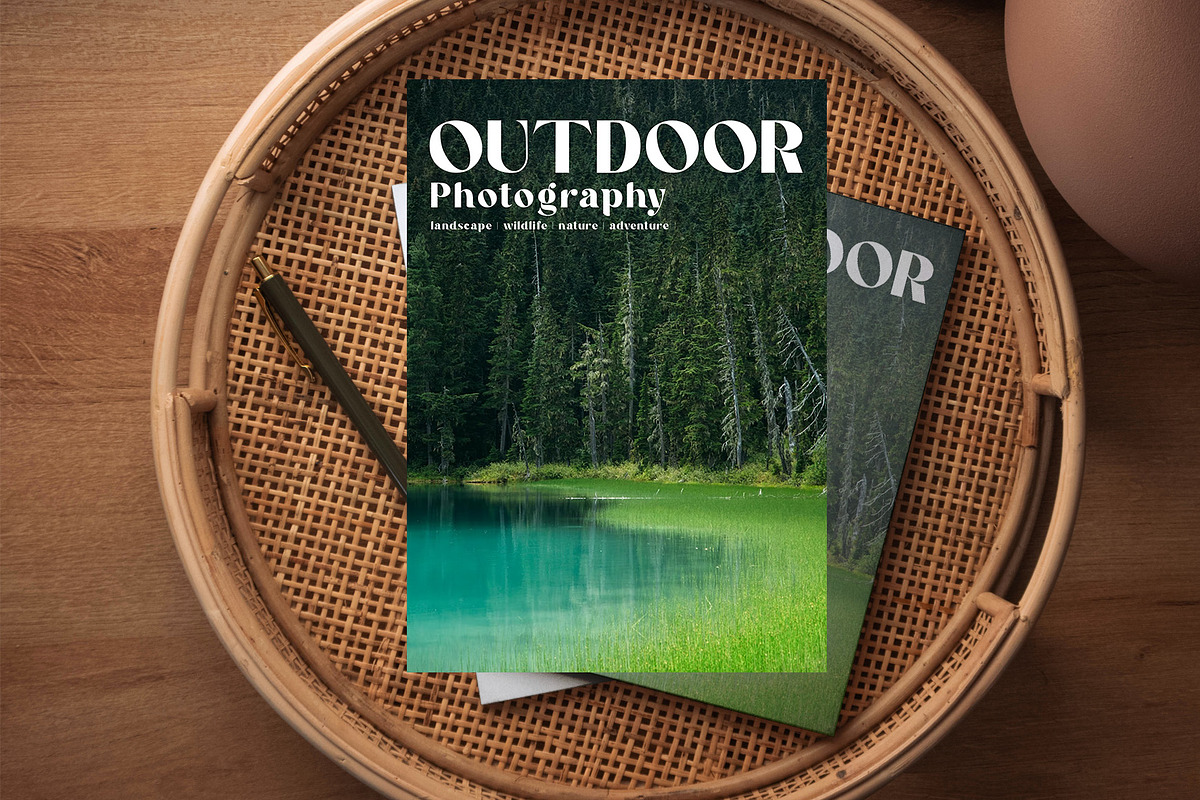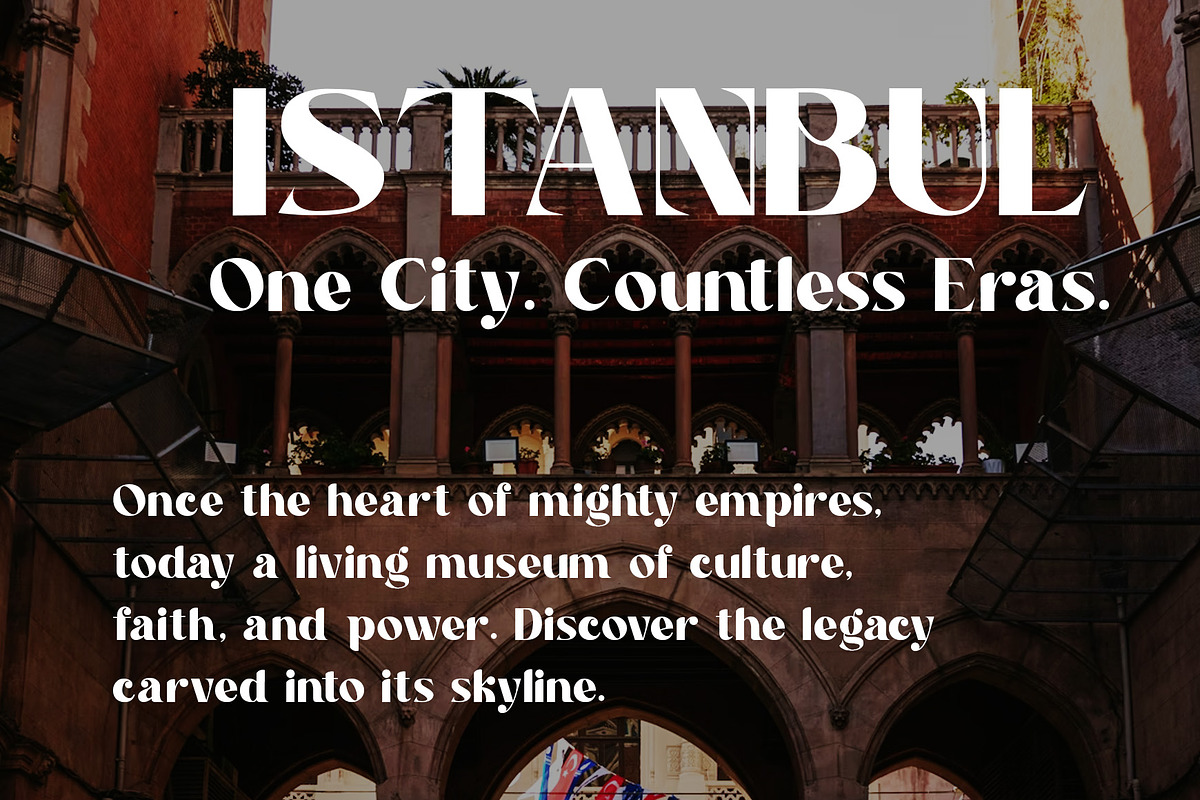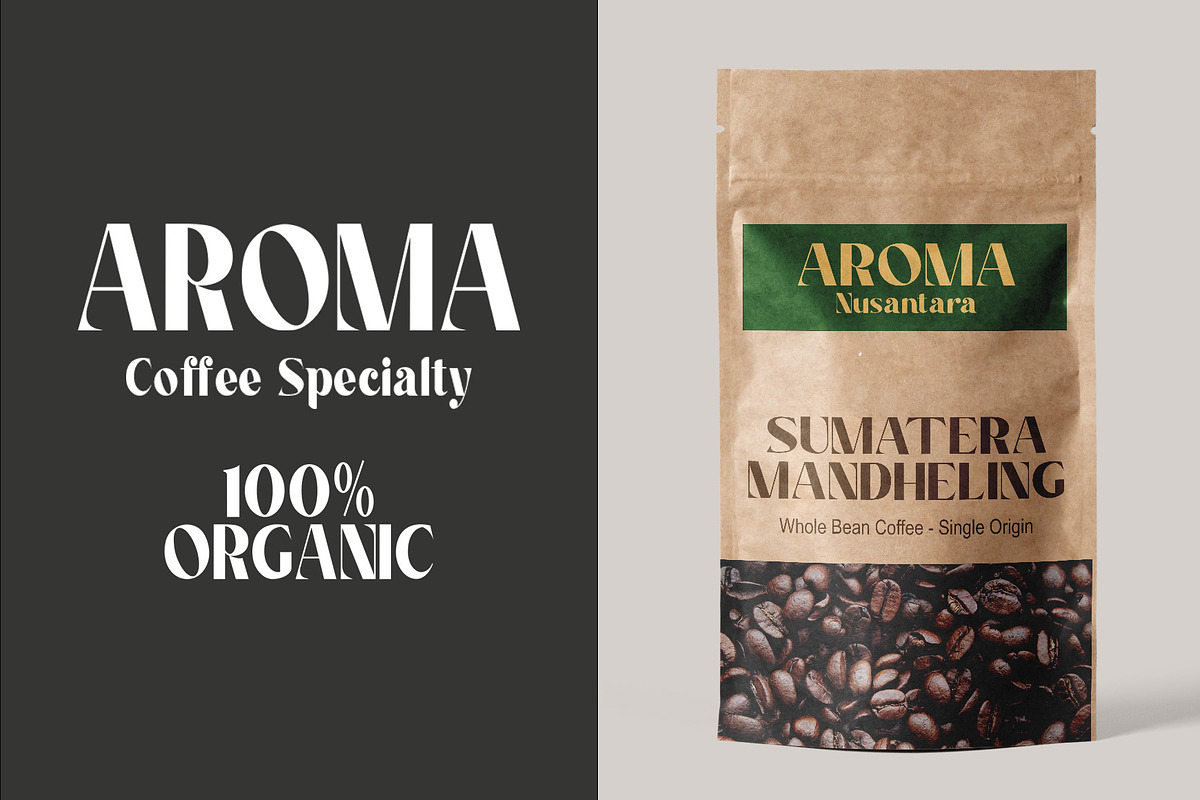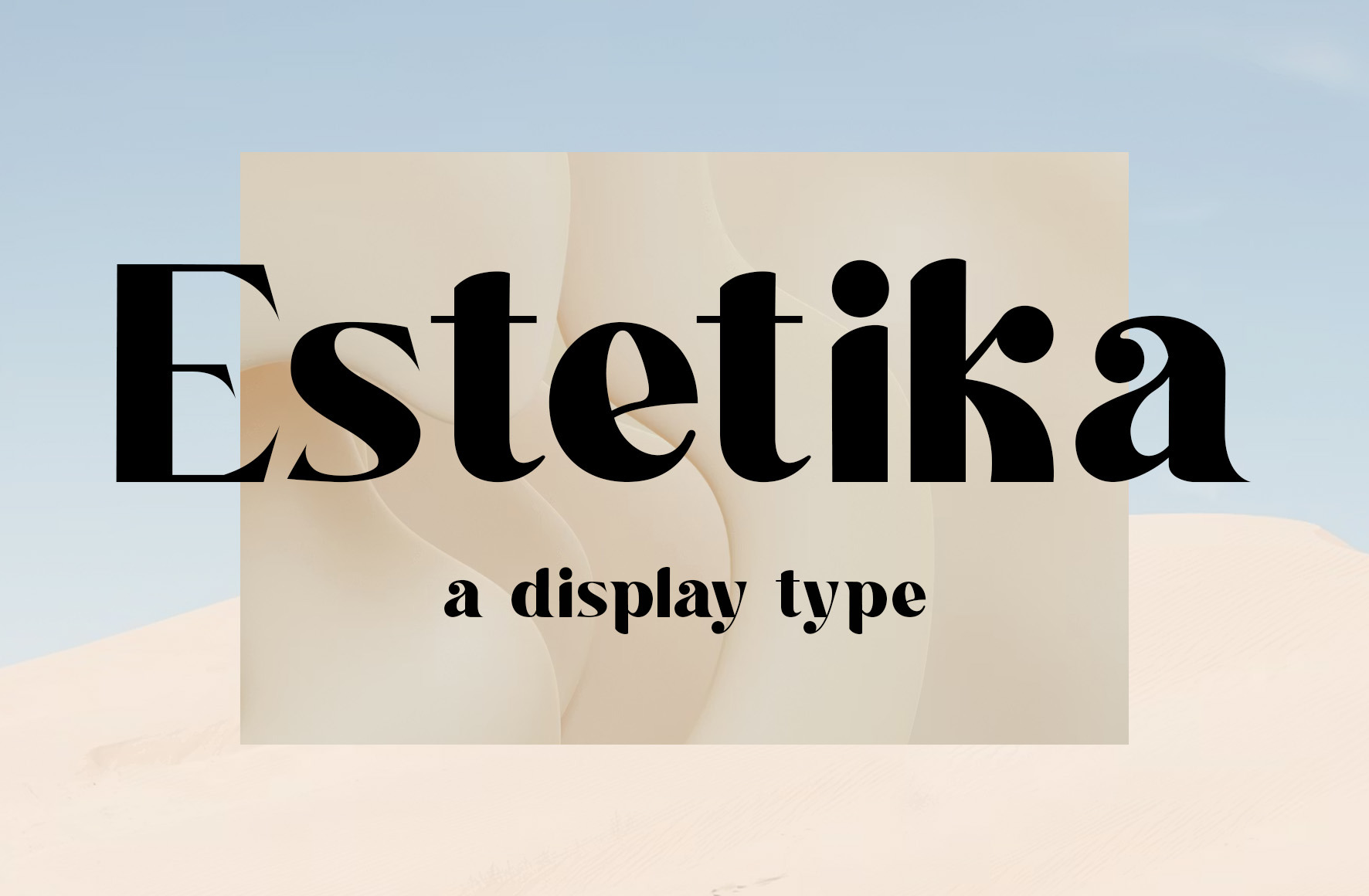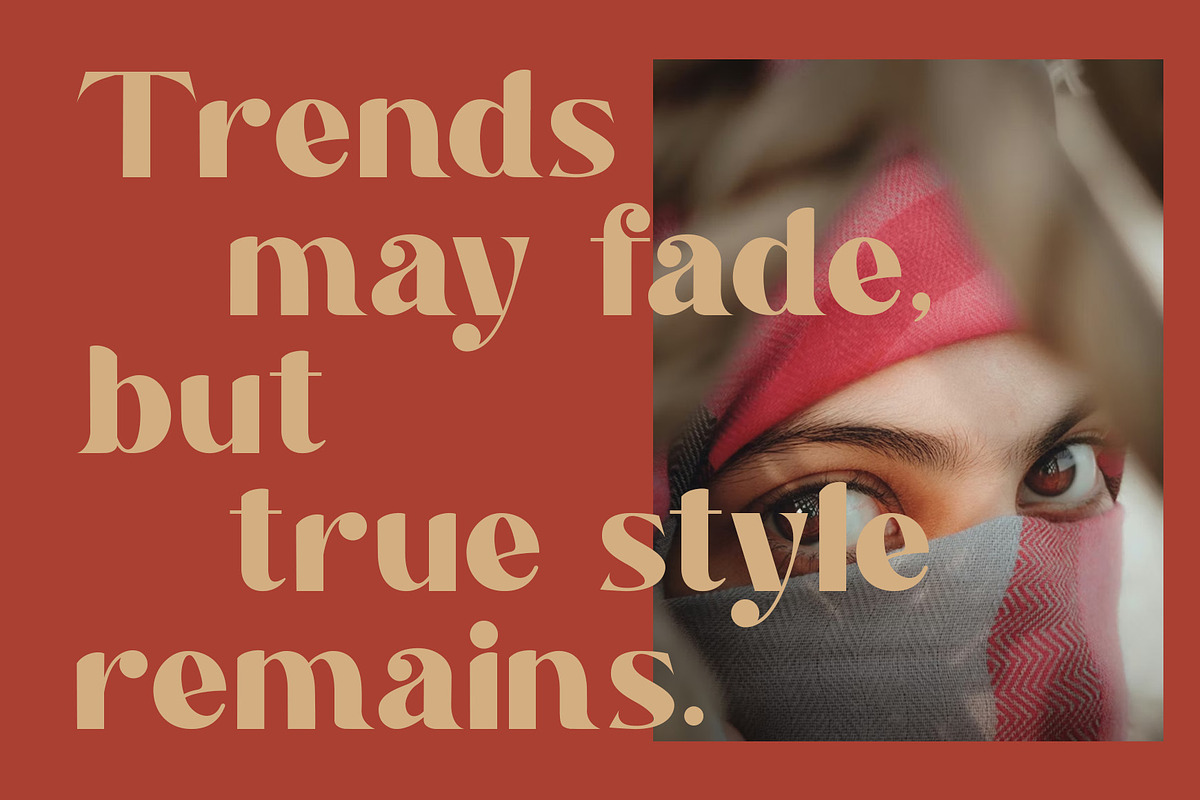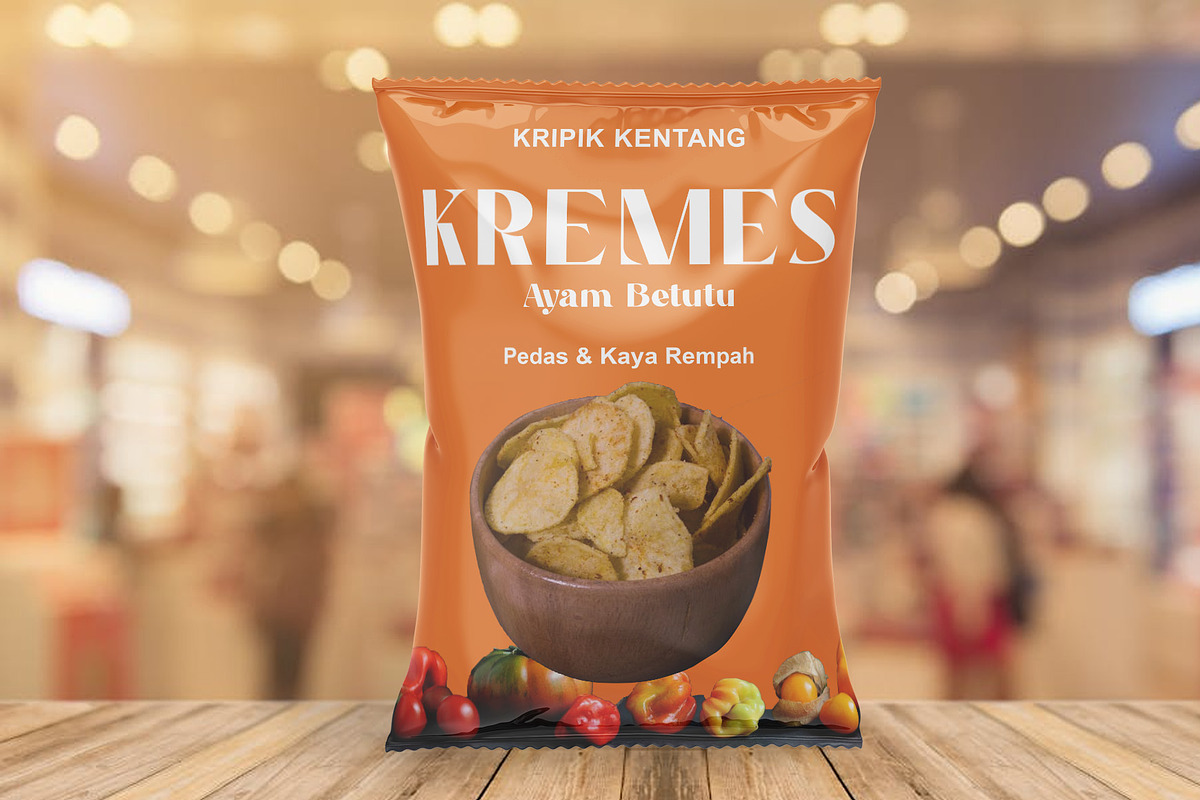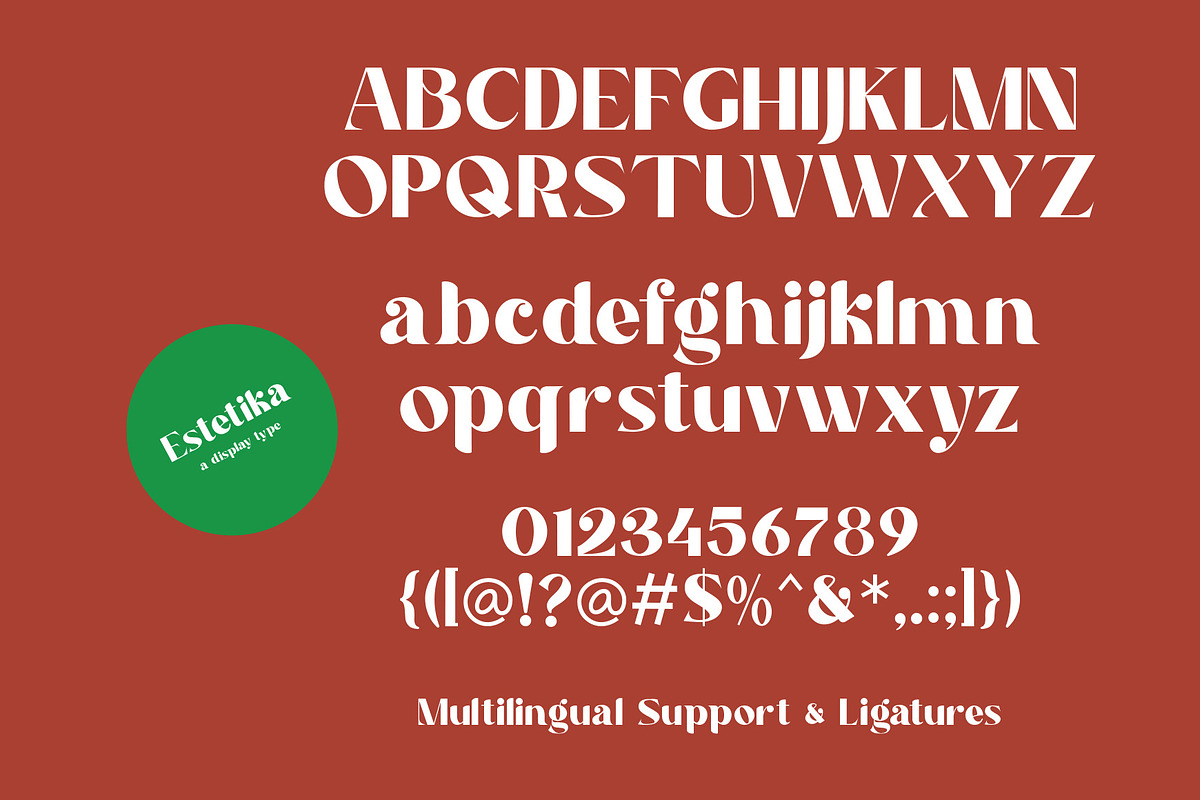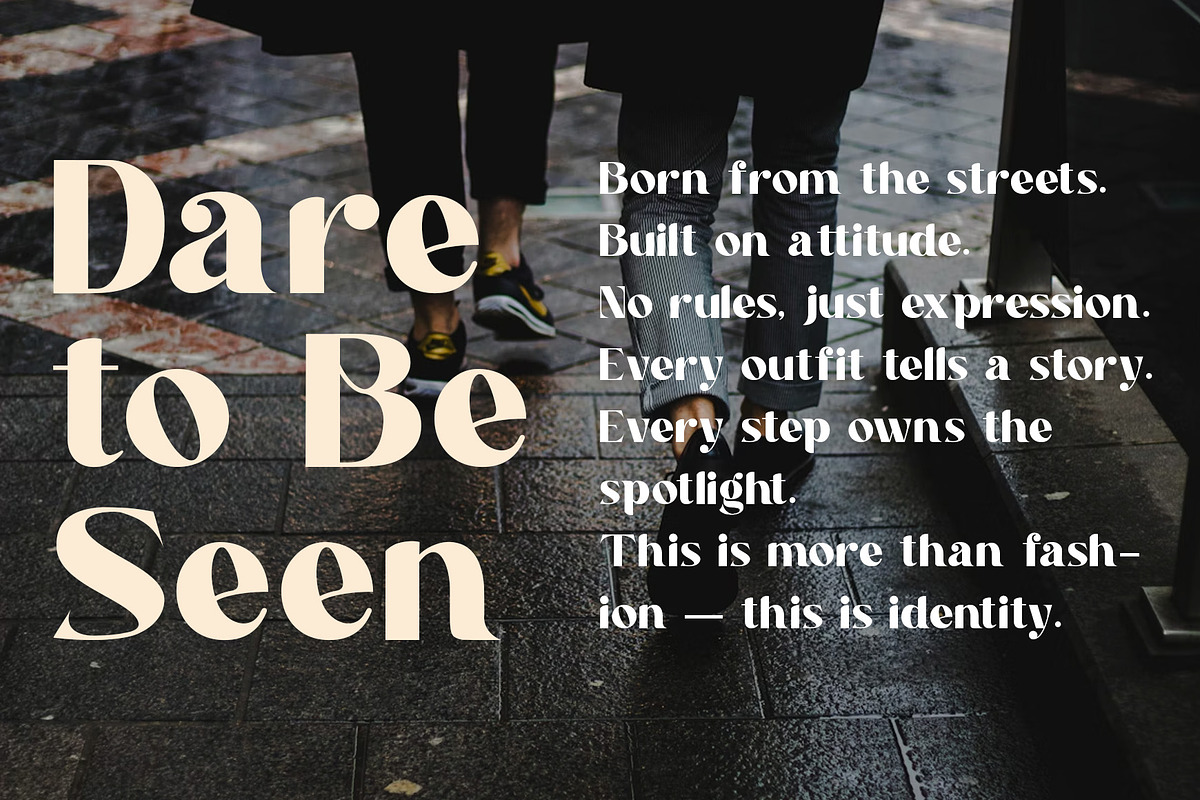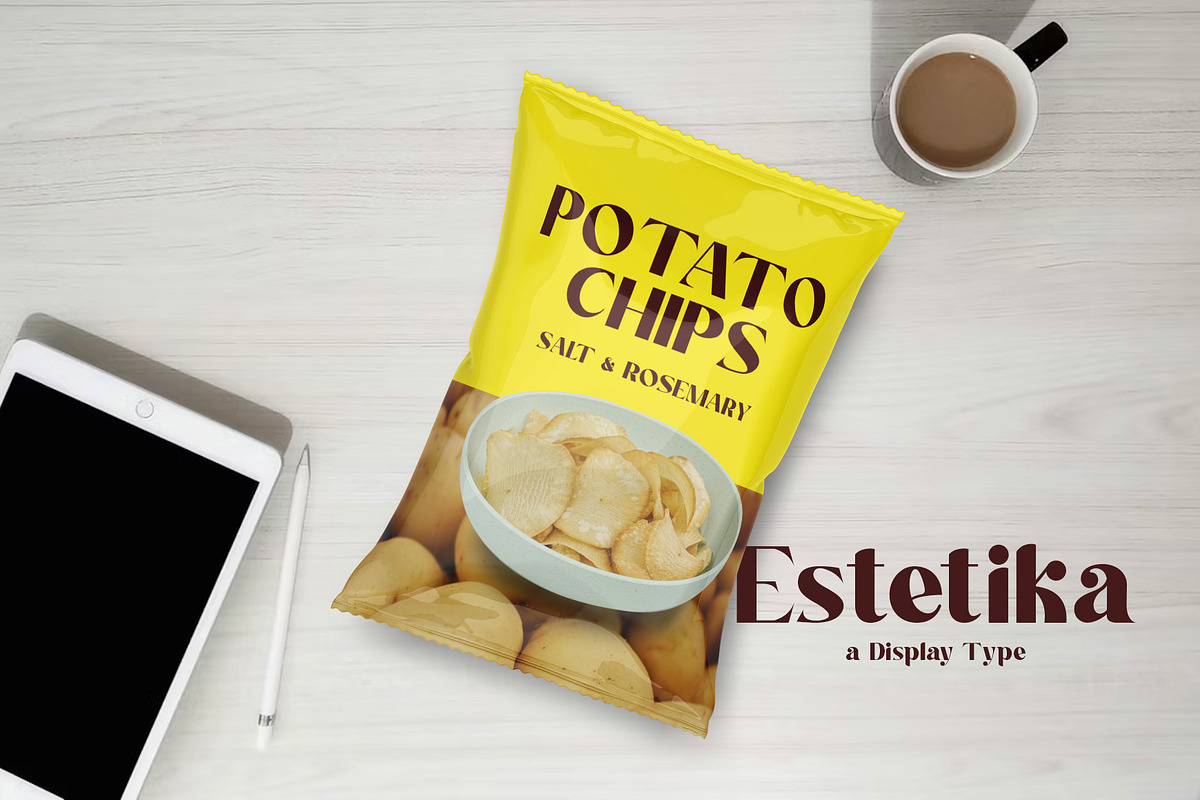
Estetika – Luxury Modern Serif Font
Estetika is a modern display serif typeface that blends elegance, artistic curves, and high-contrast letterforms. Designed to stand out, this font brings a sophisticated and stylish character perfect for premium branding and editorial designs.
With its refined shapes and distinctive details, Estetika creates a strong visual presence while maintaining readability. The balanced proportions and elegant ligatures make it ideal for projects that require a luxurious and contemporary feel.
This typeface works beautifully for fashion brands, magazines, packaging, and creative layouts where typography becomes the main visual element.
Perfect for
Logo design
Fashion branding
Editorial & magazine layouts
Luxury packaging
Posters & headlines
Website headers
Invitations & branding projects
Estetika is crafted to give your design a timeless, editorial, and luxurious personality, making it a perfect choice for designers looking for a bold yet refined display serif.